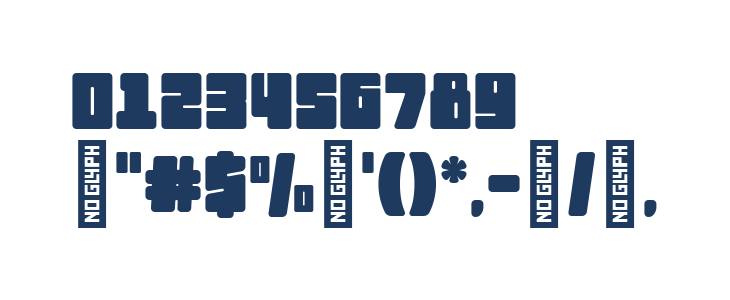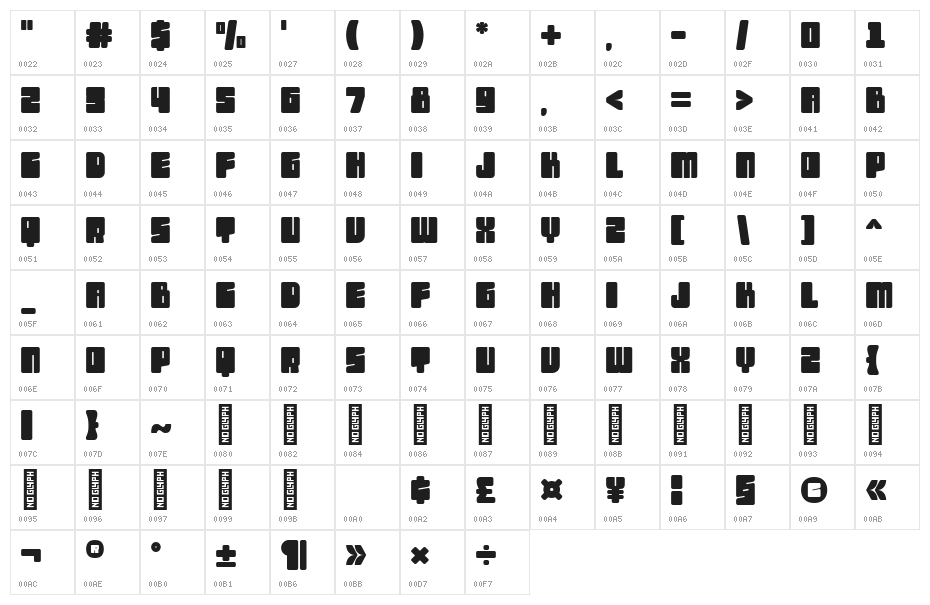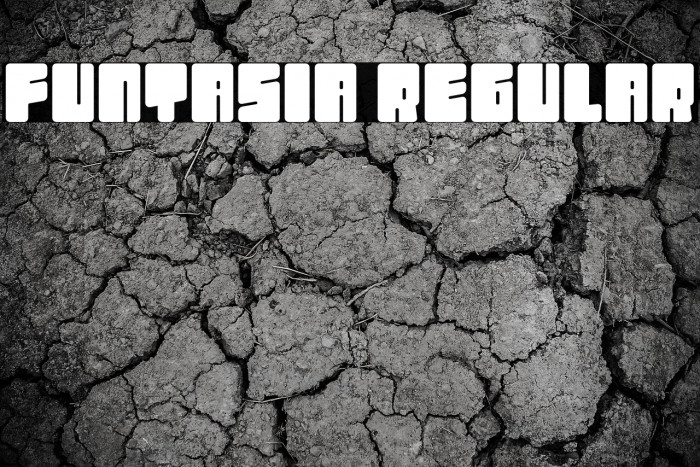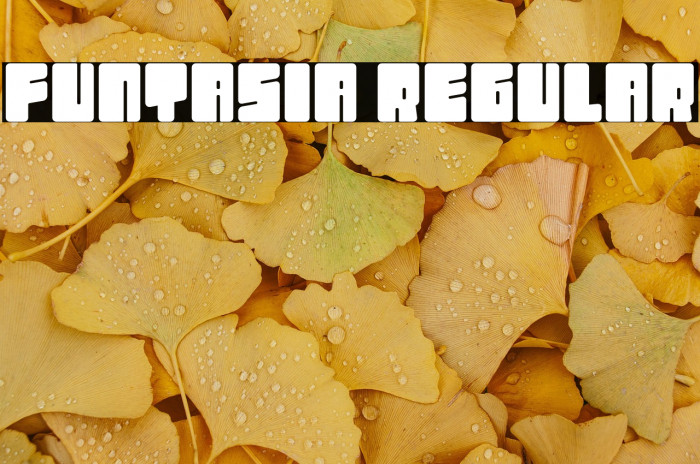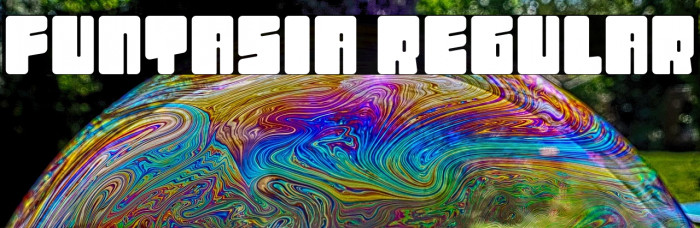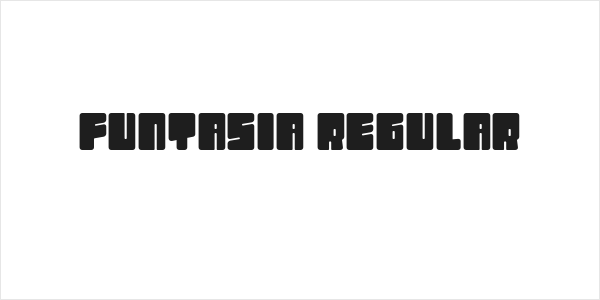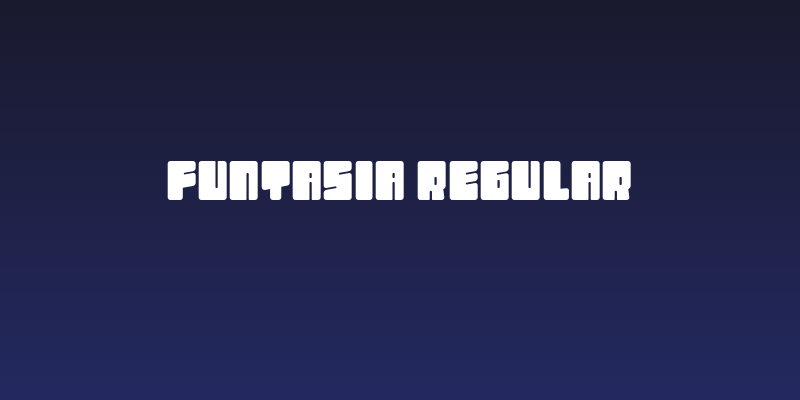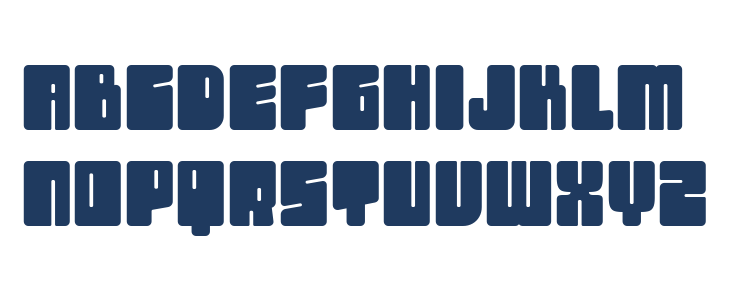
Funtasia Regular Font
Funtasia Regular Description
This font features bold, blocky characters with a playful and chunky appearance. The letters are uniformly thick, creating a strong visual impact. The style is reminiscent of retro or vintage designs, with a modern twist that makes it suitable for contemporary projects. The characters are evenly spaced, providing a balanced look that enhances readability despite the heavy weight. The font includes a full set of uppercase and lowercase letters, numbers, and a variety of special characters, making it versatile for different design needs. Its boldness and unique style make it stand out, perfect for capturing attention in headlines or logos.
Overall StyleRetro, Modern
Proposed ProjectsIdeal for posters, logos, branding, and any design requiring a strong, eye-catching typeface.